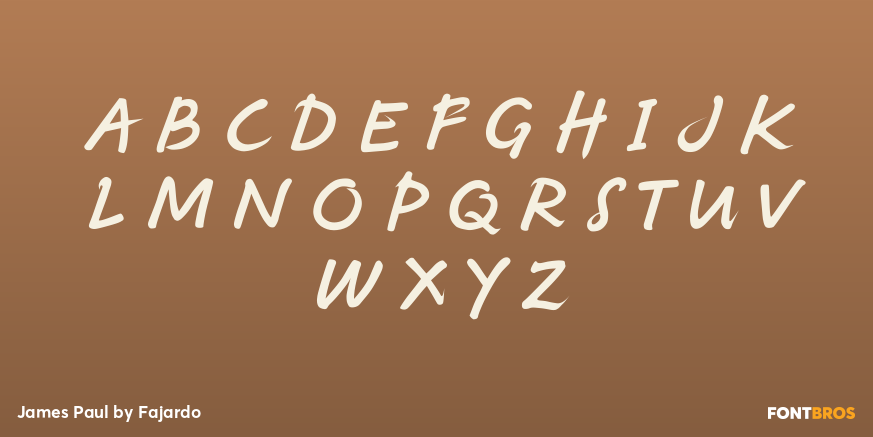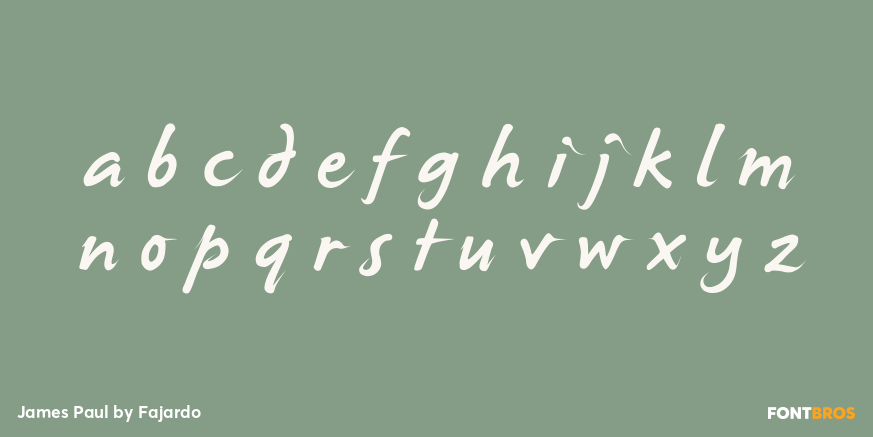
James Paul
Font Family by Fajardo
Buy NowJames Paul is a versatile display font based on the designer's handwriting. The letterforms are legible even at small sizes. When set bigger, this bold script reveals hairline ink trails that add rhythm to its lively forms.
James Paul contains alternate glyphs and ligatures.